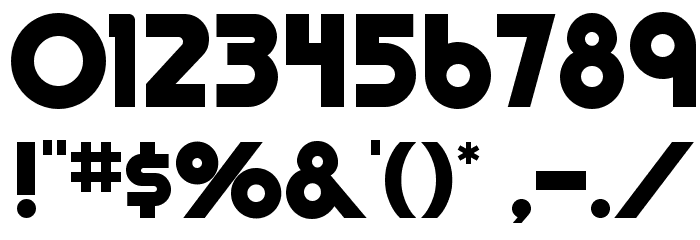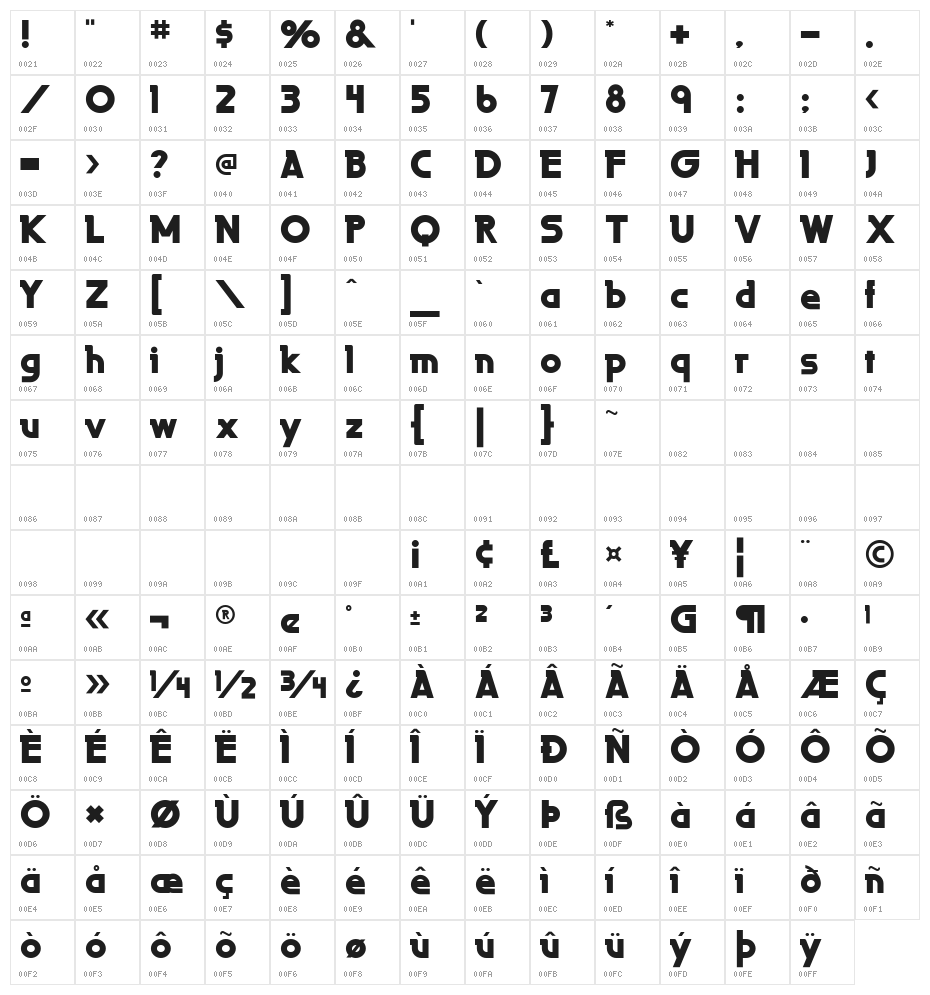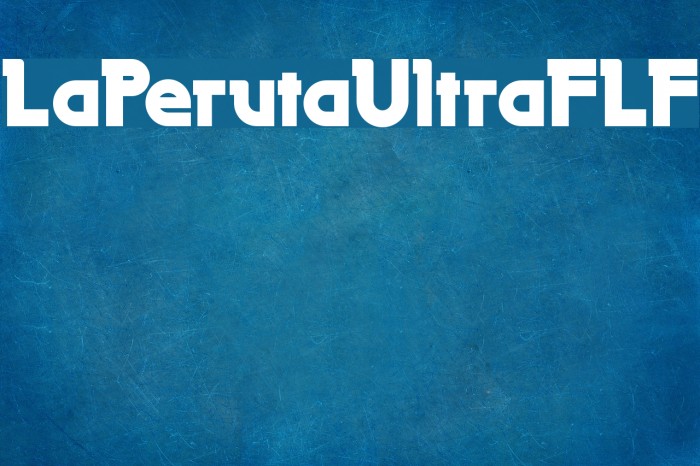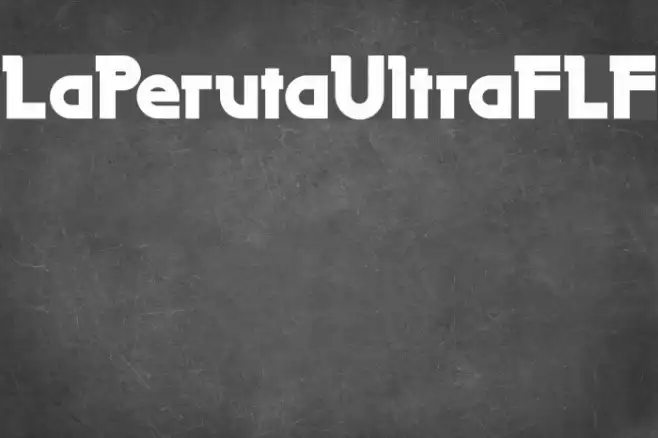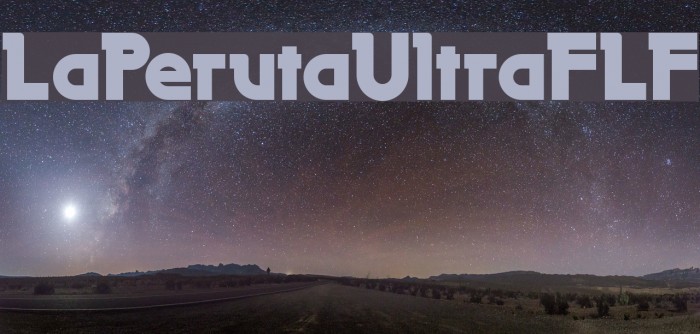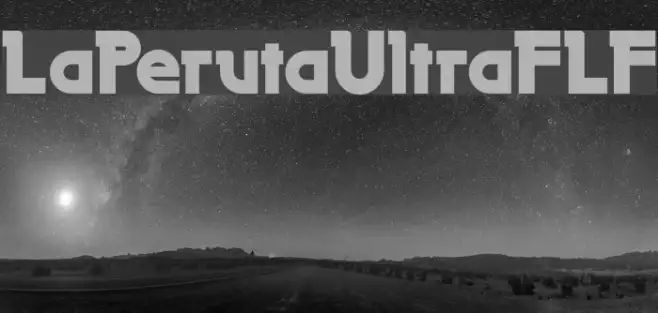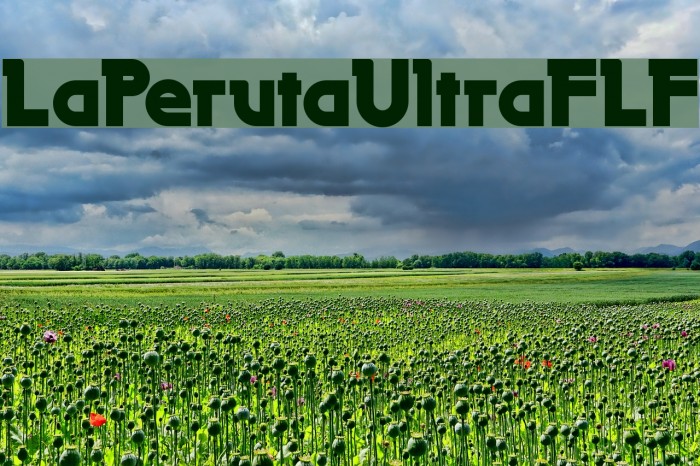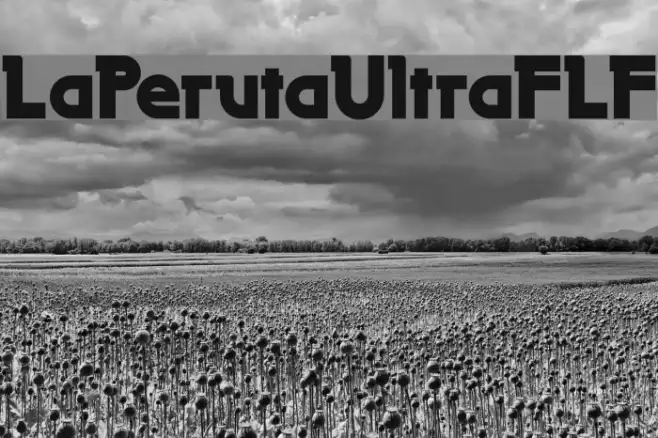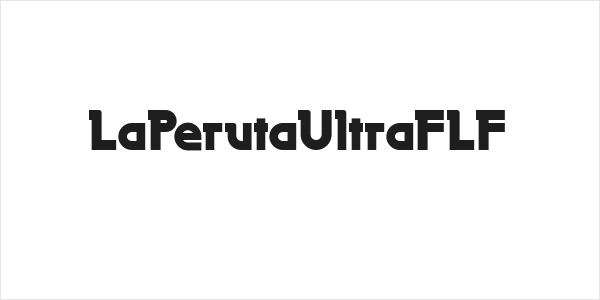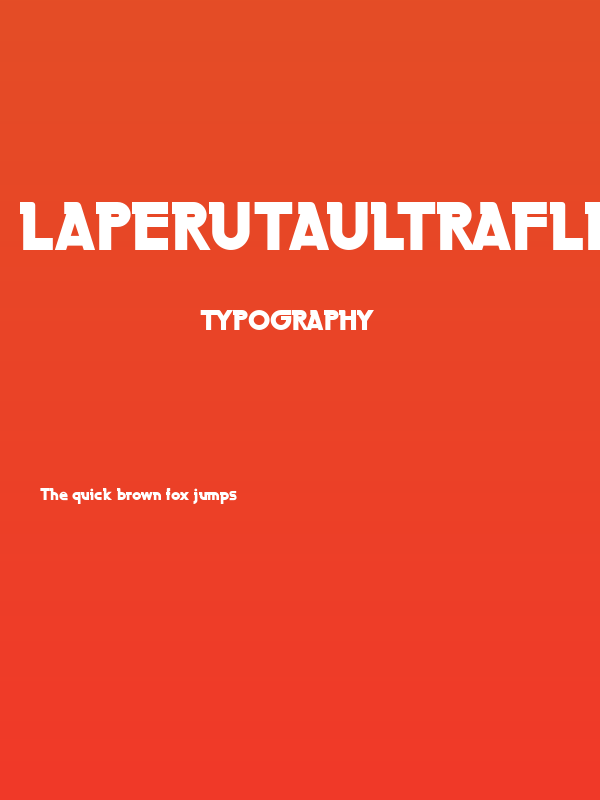
LaPerutaUltraFLF Font
LaPerutaUltraFLF Description
This font features a bold and geometric design, characterized by its thick strokes and strong presence. The uppercase letters are particularly striking, with a uniform height and width that create a cohesive look. The lowercase letters maintain the boldness, with rounded edges that soften the overall appearance. The numerals are equally bold, ensuring visibility and readability. Special characters are designed to match the bold style, making them stand out effectively. This font is ideal for making a strong visual impact, with its modern and assertive style.